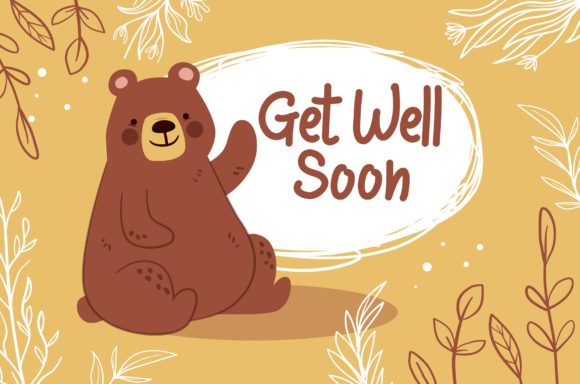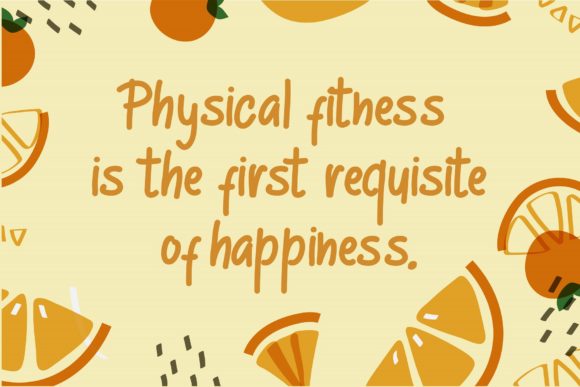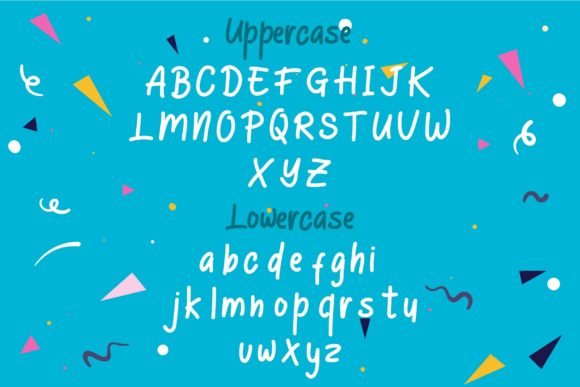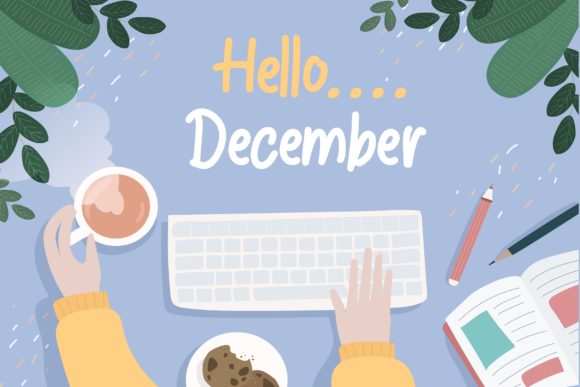
Amoni Boni Font: The Sweetest Addition to Your Font Library
Are you tired of using the same old fonts in your designs? Look no further! Amoni Boni Font is here to add a touch of sweetness to your creations. This cute handwritten font is perfect for designers and crafters who want to elevate their work with a unique and charming style.
What Makes Amoni Boni Font So Special?
Amoni Boni Font is a one-of-a-kind handwritten font that stands out from the rest. Its sweet and playful style makes it perfect for a wide range of projects, from invitations and greeting cards to branding and packaging. No matter the topic, this font will add a touch of whimsy and charm to your designs.
Key Features of Amoni Boni Font
• Cute and Handwritten Style: Amoni Boni Font has a unique, handwritten style that’s perfect for creating designs that are both personal and professional.
• Versatile: This font can be used for a wide range of projects, from digital designs to print materials.
• Elegant and Whimsical: Amoni Boni Font strikes the perfect balance between elegance and playfulness, making it perfect for designs that need a touch of sophistication and charm.
Why You Need Amoni Boni Font in Your Library
As a designer or crafter, you know how important it is to have a diverse font library. Amoni Boni Font is a valuable addition to your collection, as it can be used in a variety of contexts. Here are just a few reasons why you need Amoni Boni Font in your library:
• Adds a Personal Touch: Amoni Boni Font is perfect for adding a personal touch to your designs. Its handwritten style makes it feel more approachable and friendly.
• Perfect for Branding and Packaging: This font is ideal for creating unique and eye-catching branding and packaging designs that will set your products apart.
• Great for Digital Designs: Amoni Boni Font is also perfect for digital designs, such as social media graphics, blog posts, and email newsletters.
How to Use Amoni Boni Font
Using Amoni Boni Font is easy! Here are a few tips to get you started:
• Pair it with Other Fonts: Amoni Boni Font pairs well with other fonts, so feel free to experiment with different combinations to create a unique look.
• Use it for Headings and Titles: This font is perfect for headings and titles, as it’s bold and eye-catching.
In conclusion, Amoni Boni Font is a sweet and charming handwritten font that’s perfect for designers and crafters. Its unique style and versatility make it a valuable addition to any font library. Whether you’re creating digital designs, print materials, or branding and packaging, Amoni Boni Font is sure to elevate your work and add a touch of whimsy and charm. So why wait? Add Amoni Boni Font to your library today and start creating designs that are both beautiful and unique!